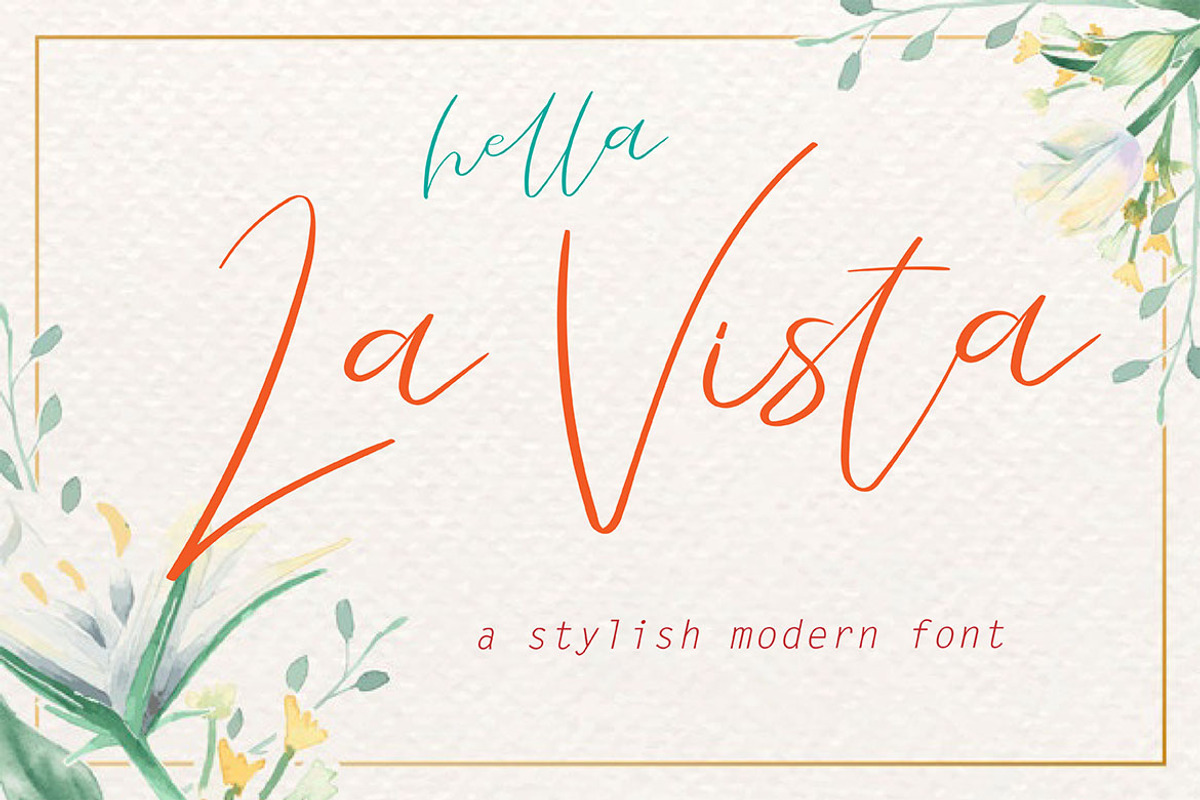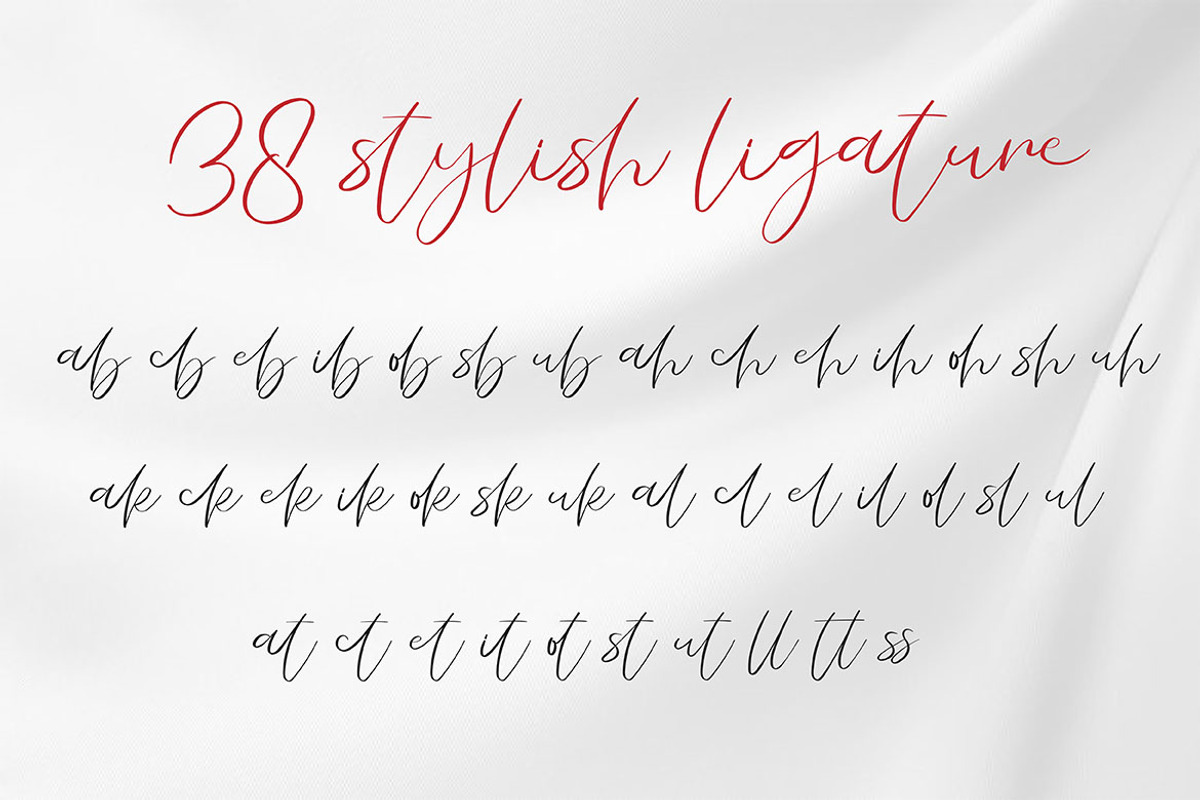
La Vista
Effortlessly take your branding and design to the next level with La Vista Font.
LA VISTA is a stylish modern script and calligraphy, full of personality and curves. This font was designed using quick strokes to create natural handwritten, Stylish ligature to give the font a natural look in a digital world. Perfect for any awesome project that need hand writing taste.
This is suitable for logos, watermarks on photography, signatures, branding, advertisement, quotes, invitations, stationery, wedding design,album covers, business cards, clothing, magazines, posters, and more!
As usual ,the font comes with many opentype features such as 38 Stylish Ligature and underlines. Also support multilingual. You can access all those alternate characters by using Opentype or Glyph program such as Adobe Illustrator cs,Adobe Photosop cc, Adobe InDesign, etc.